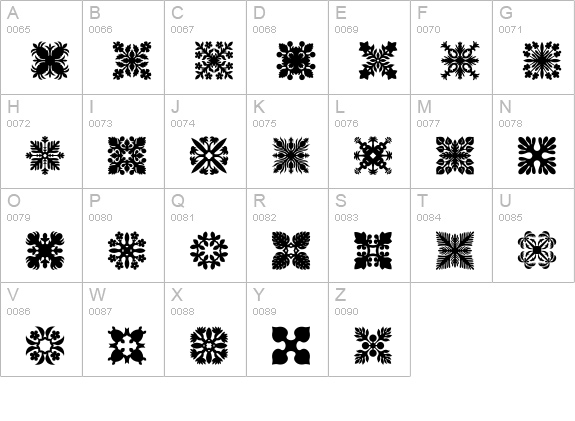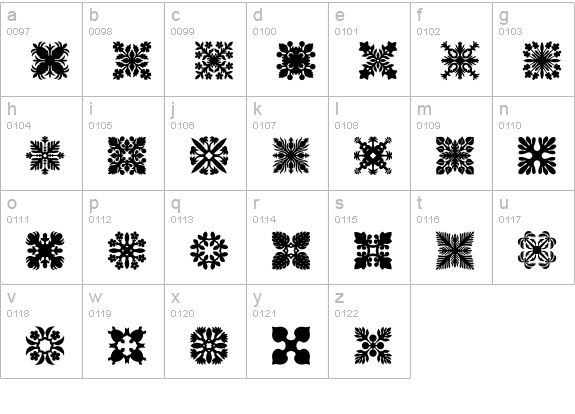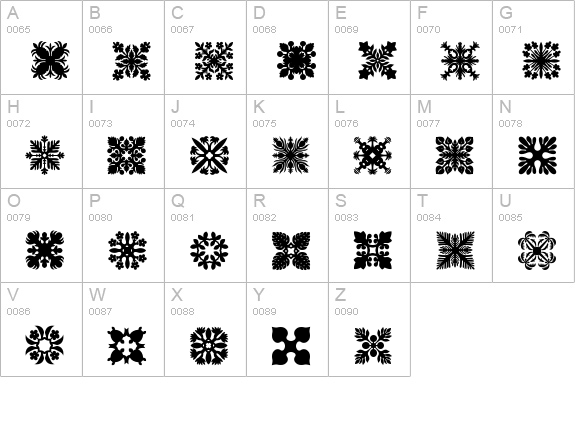
Introducing Hawaiian Quilt2, a font that embodies the enchanting beauty of the Hawaiian islands. This exquisite typeface captures the essence of traditional Hawaiian quilts, with its intricate patterns and graceful curves. Hawaiian Quilt2 is the perfect choice for any project that seeks to evoke the spirit of Hawaii. Whether you're designing a tropical-themed invitation, creating eye-catching signage for a Hawaiian luau, or adding a touch of aloha to your branding, this font will transport your audience to the sunny shores of paradise. What's even better is that Hawaiian Quilt2 is freely available to download at FontsMarket.com. Yes, you read that right - this stunning font can be yours at no cost. Simply visit FontsMarket.com and start infusing your designs with the vibrant energy of Hawaii. With its wide range of characters and exceptional legibility, Hawaiian Quilt2 is a versatile typeface that will elevate your creative endeavors to new heights. So why wait? Embrace the free-spirited nature of Hawaiian Quilt2 and let your imagination soar. Download this font today and embark on a design journey that celebrates the beauty and tranquility of the Hawaiian islands.